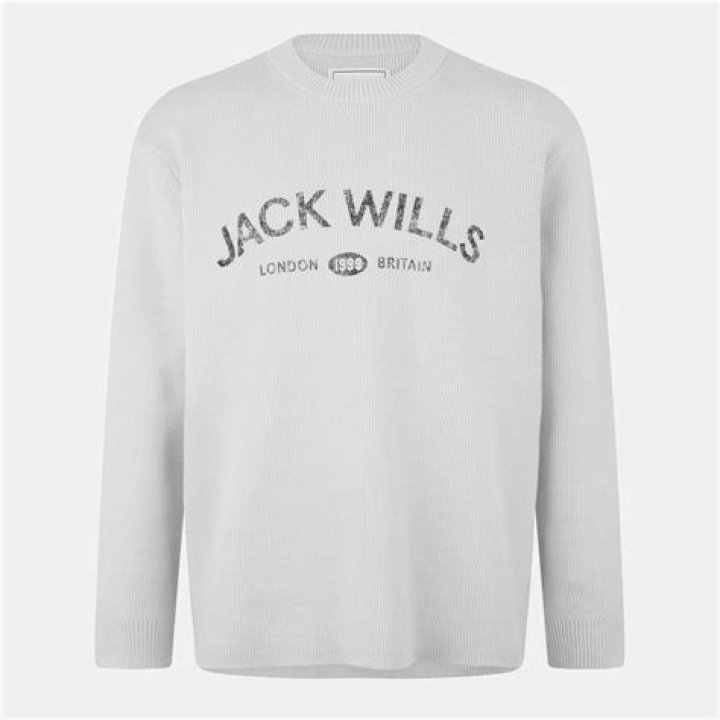
What font is Jack Wills?
Garamond
The primary typeface Jack Wills use is Garamond, it is the predominant typeface we use for our brands name. This typeface offers elegance, as well as being clear and readable. It sets a traditional tone and is attractive and graceful in print. The second typeface of Jack Wills is Edwardian Script.
Who created Garamond font?
Claude Garamond
Enduring for almost five hundred years, since it was first created in the early sixteenth century by Claude Garamond, a French type designer, it has evolved into numerous different versions; now, Garamond is a given name to the old-style typefaces based on Claude Garamond’s type designs, and the different versions …